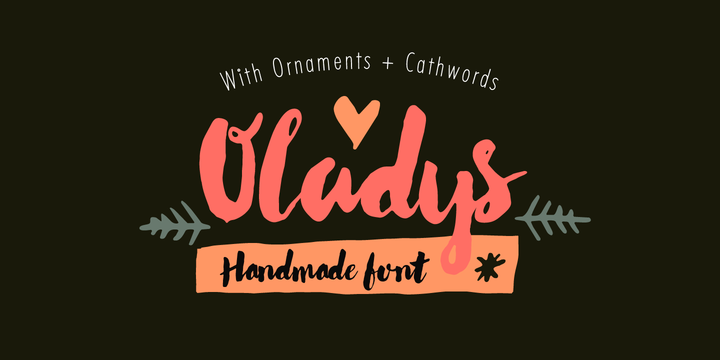
RNS Oladys
by RNS Fonts
RNS Oladys is a hand lettered brush font with ornaments, has a set of alternates for the lowercase and many kerning features advantages. The design is set from a strong wet brush making the imperfections an expressive quality and characteristic personality.